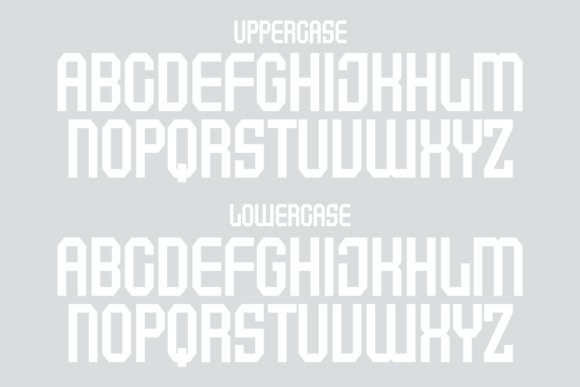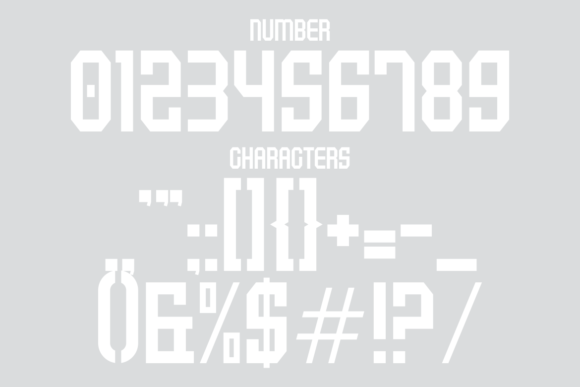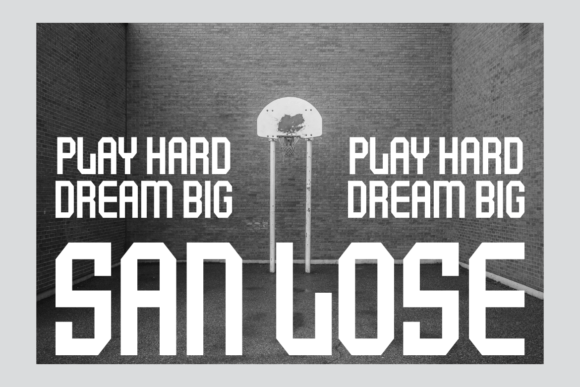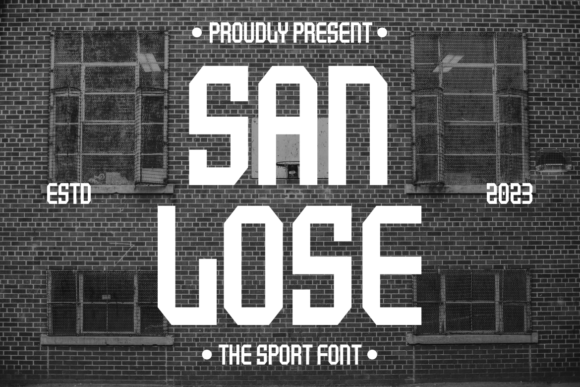
Introduction to San Lose Font
**San Lose** is a super thick typeface and bold with more traditional letter shapes, making it perfect for creating (or recreating) the concise look of film poster production credits and sports posters.
Key Features of San Lose Font
Why Choose San Lose Font?